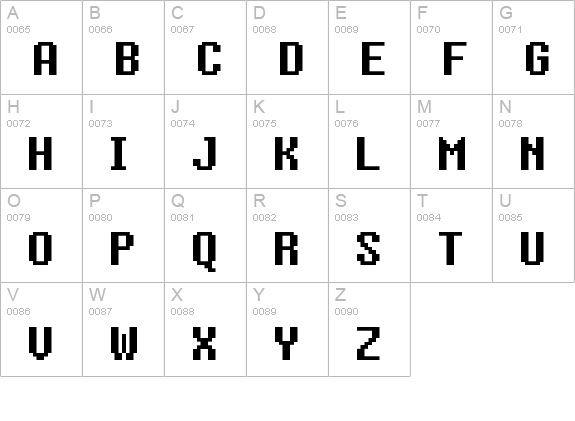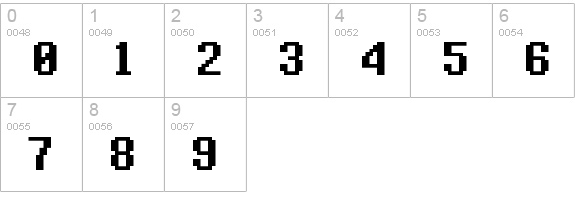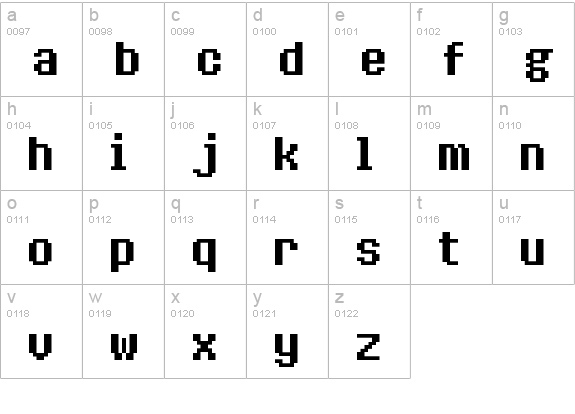
The 8bitoperator font is a charming and nostalgic typeface that brings back memories of classic video games and retro technology. With its pixelated design and quirky style, this font is perfect for adding a fun and playful touch to your projects. Whether you're working on a gaming website, a poster for a themed party, or simply want to inject some old-school flair into your designs, 8bitoperator is sure to delight.